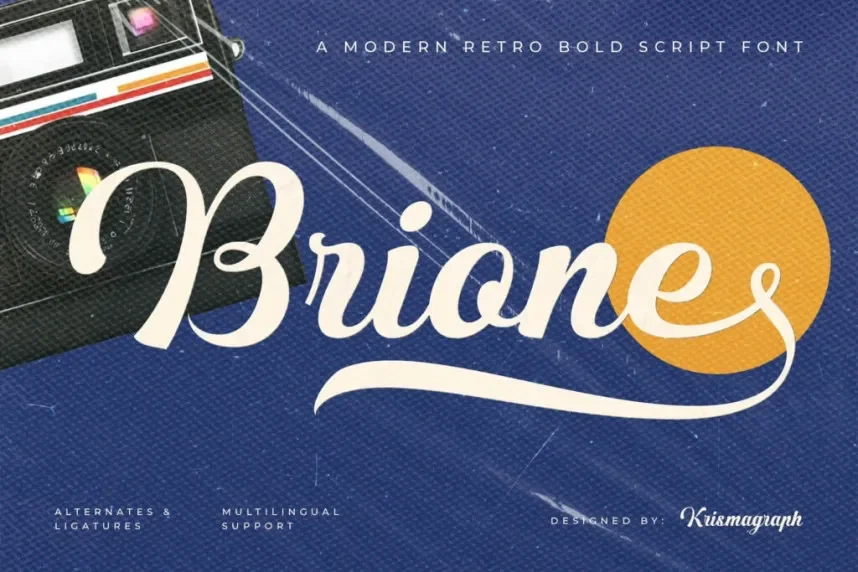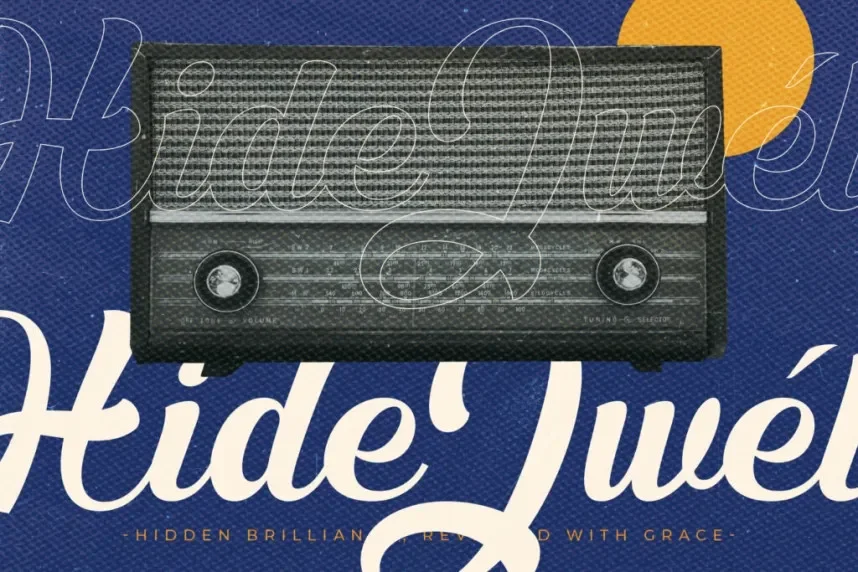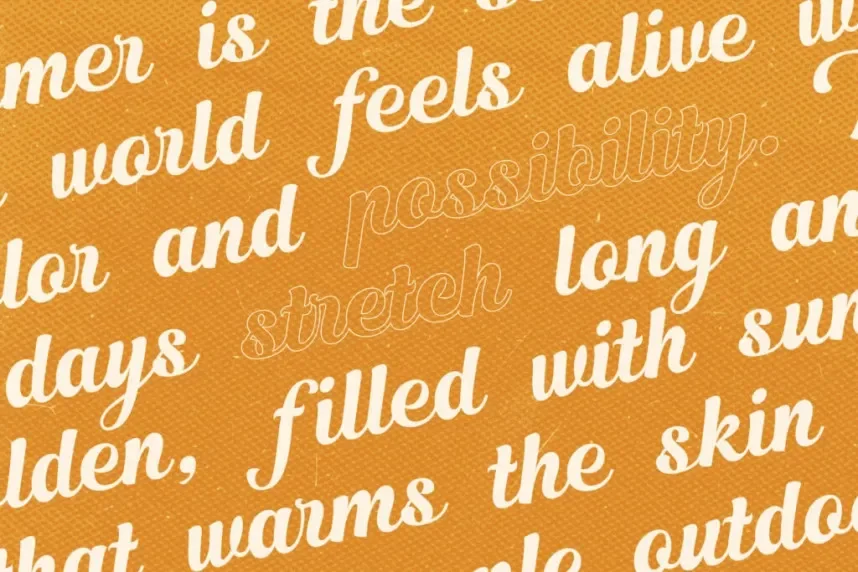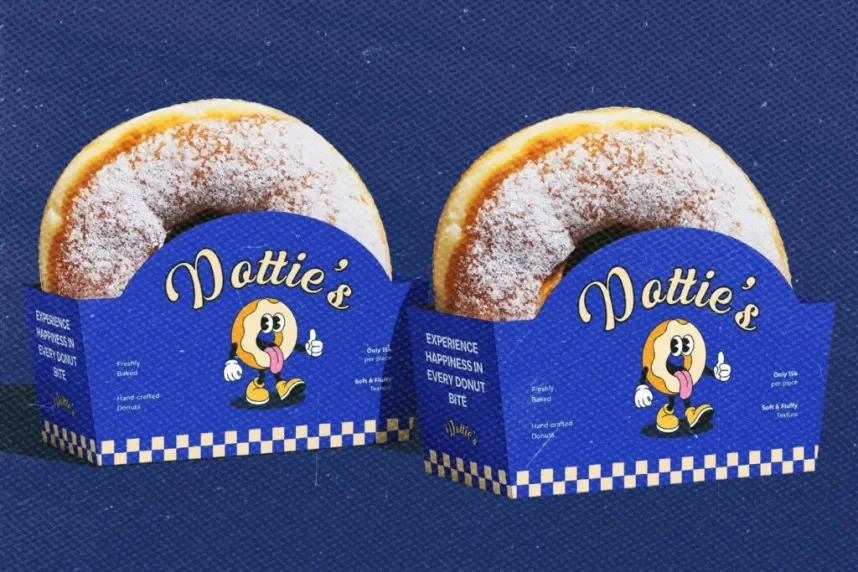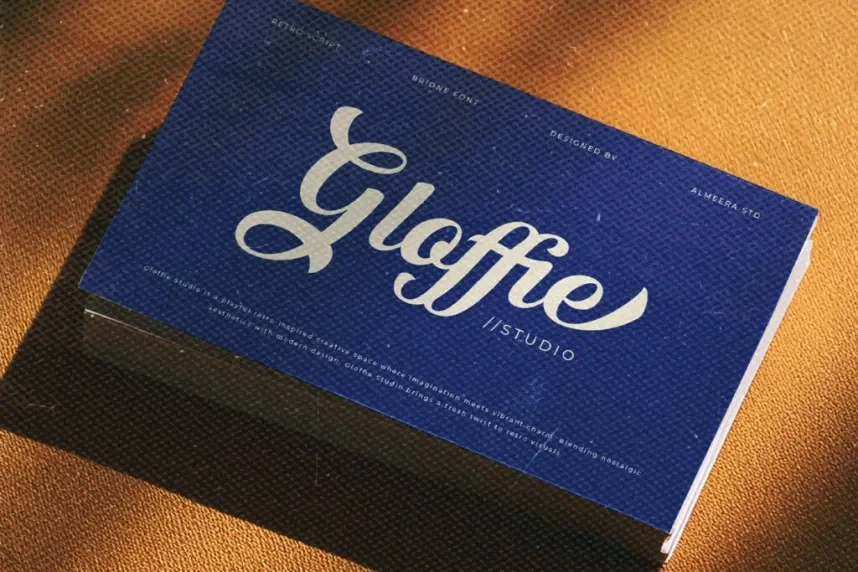
Brione Font is an elegant serif typeface that combines traditional design with modern aesthetics. The high contrast between thick and thin strokes, along with its graceful curves, makes it ideal for high-end branding, invitations, and luxury design projects.